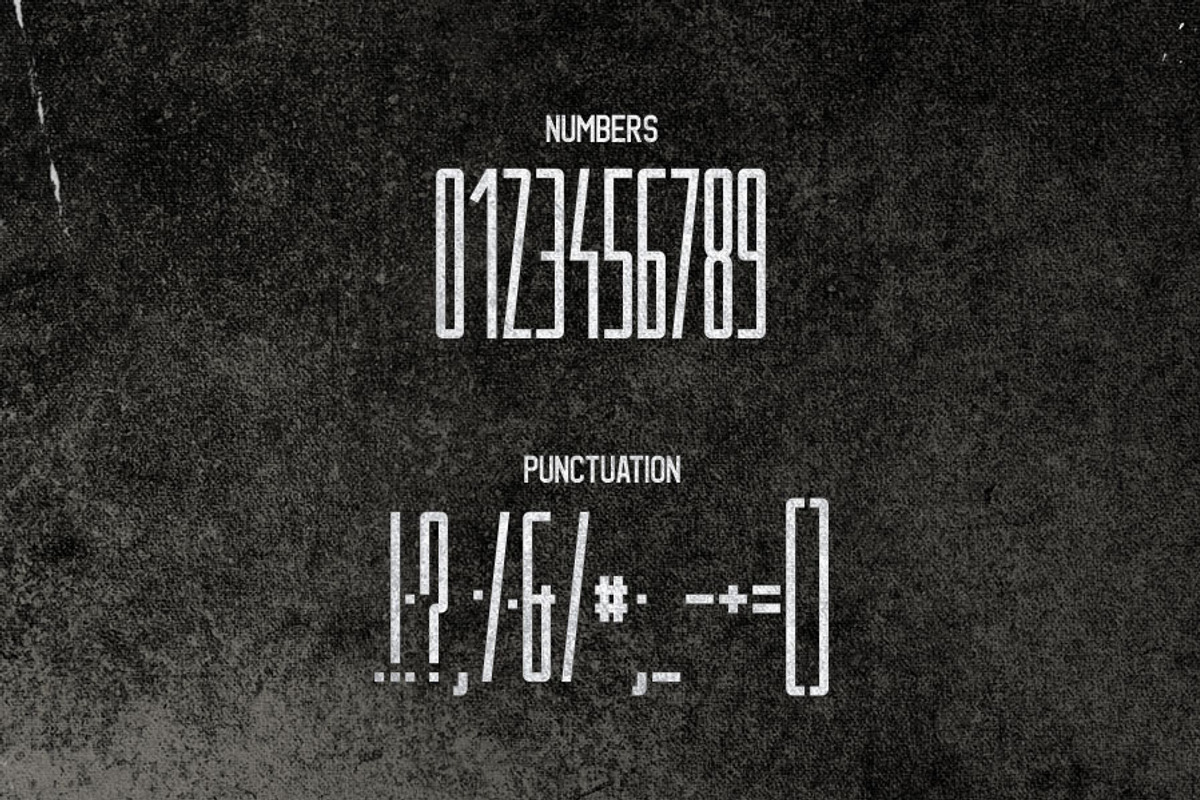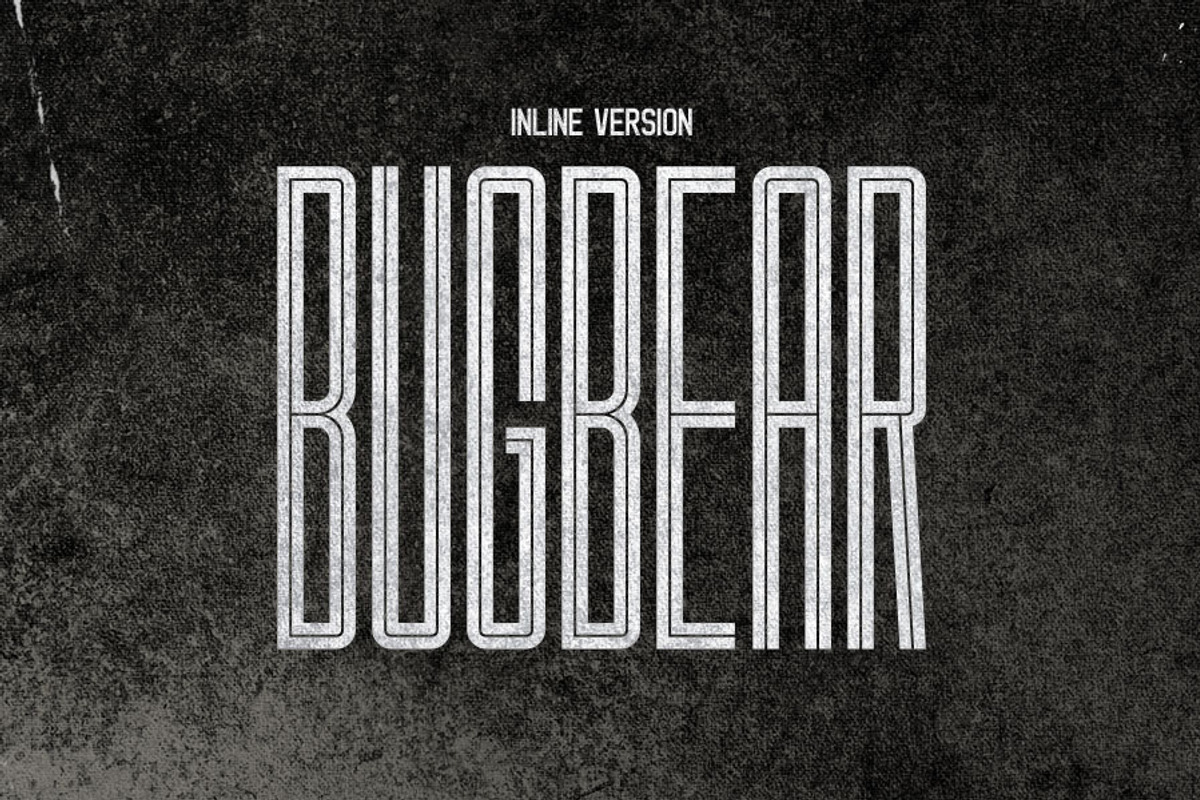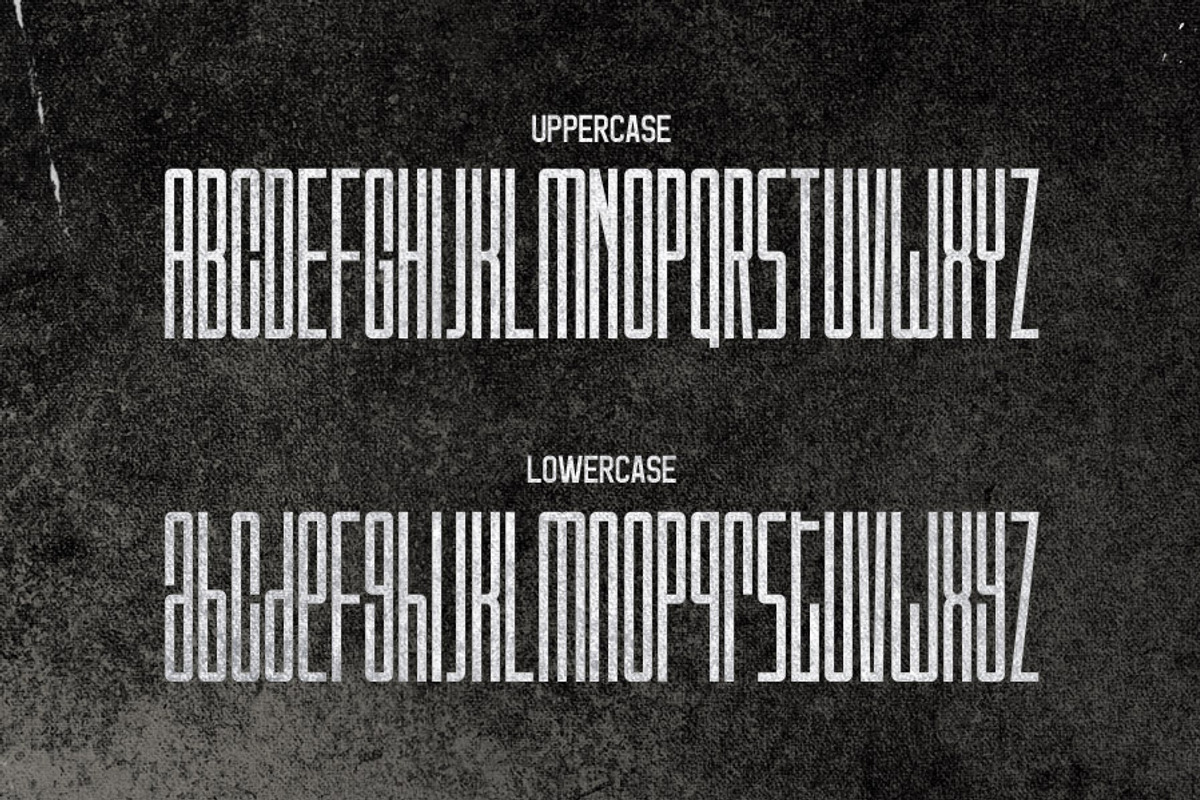
Ogre Typeface
Ogre Typeface by Tugcu Design Co. is a font selected for branding, posters, packaging, typography.
- It includes uppercase, lowercase, numerals and punctuation.
- The font has narrow kerning and works better in larger sizes.
Why Ogre Typeface is worth a look
Ogre Typeface by Tugcu Design Co. fits naturally into Branding, posters, packaging, typography.